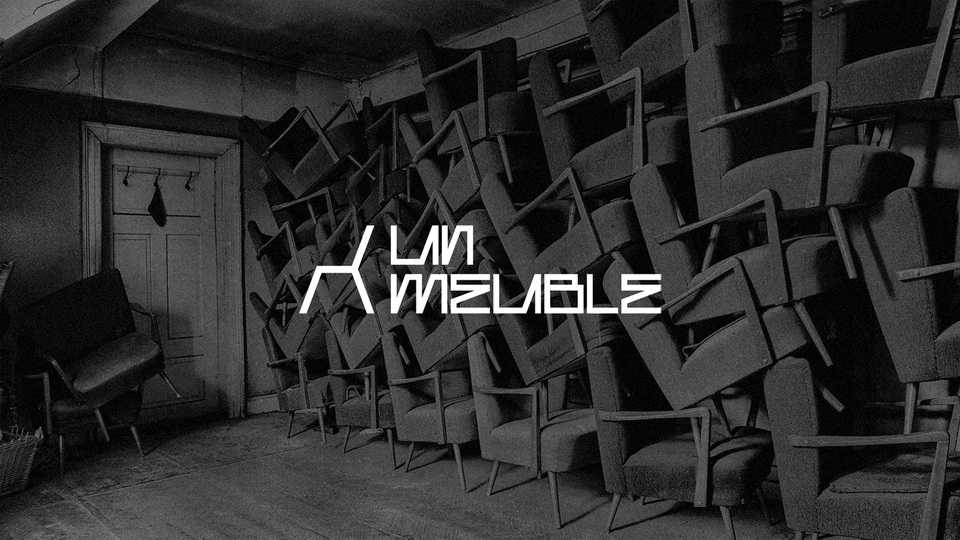
Download Un Meuble font, a geometric display typeface build from a logo designed for a concept furniture store. Un Meuble is a modular typeface that started with an idea of minimalist chair logo and expanded into an entire alphabet.